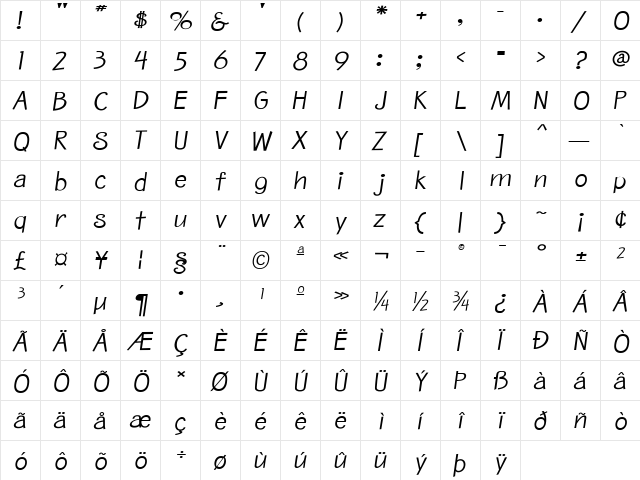
Birdlegs Regular
Design Context for Birdlegs Typeface
Birdlegs offers clean, dependable letterforms without strong stylistic allegiance, making it a practical choice for designers who need flexibility.
Pro Tip: Use Birdlegs in both headline and body roles to test its range before committing to a single application.